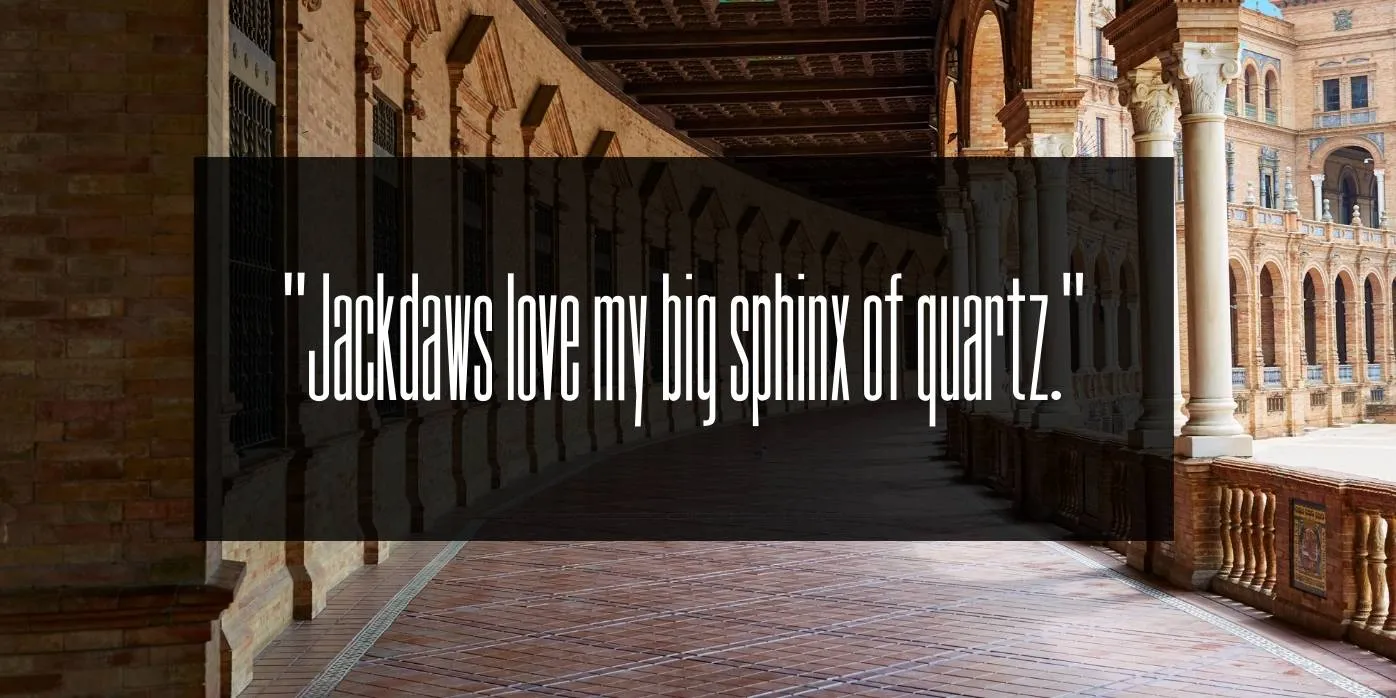
Tall Skinny Condensed Font
Here, we present a modern sans serif typeface that is known by the name Tall Skinny Condensed Font. This typeface was designed by Rae Kaiser. Kaiser is a Berlin-based typeface designer. The typeface was released in 2019 by Schizotype Fonts.
The tall and skinny condensed Typeface is a perfect choice for those who are looking for a modern, sleek, and minimalistic sans serif typeface. The typeface is also great for branding and marketing purposes. Its copy and paste function makes it easy to use. In order to enjoy its more classic features cena font is very amazing and perfect.
This stunning typeface is available in both TTF and OTF formats. It supports Latin, Cyrillic, and Greek languages. This classy font has very high x-height and wide apertures. This makes it highly legible even in small sizes.